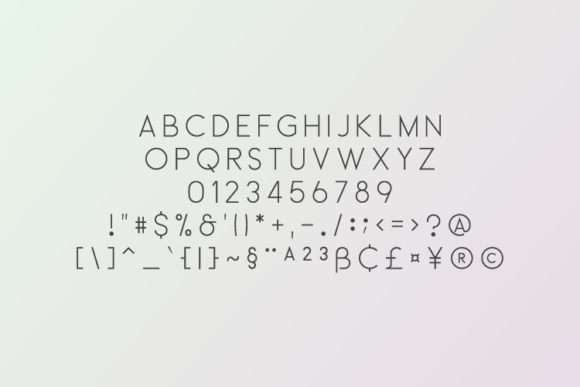
Hatar Font: A Versatile Sans Serif for Every Design Need
In the world of typography, a font can make or break a design. With thousands of options available, finding the perfect one that suits your project’s tone and style can be daunting. However, if you’re looking for a versatile and visually appealing sans serif font, look no further than Hatar. This robust typeface boasts strong capitals and smooth, open lowercase letters, making it an excellent choice for a wide range of applications, from formal to non-formal designs.
The Characteristics of Hatar Font
Hatar’s design is centered around its contrasting yet harmonious uppercase and lowercase letters. The capitals are strong and sturdy, providing a sense of solidity and formality. On the other hand, the lowercase letters are smooth and open, giving off a warm and inviting feel. This contrast makes Hatar incredibly versatile, capable of adapting to various design contexts.
Key Features of Hatar:
- Strong Capitals: The uppercase letters in Hatar are designed with strength and stability in mind. They are perfect for headlines, titles, and any section where you want to draw attention.
- Smooth and Open Lowercase: The lowercase letters are crafted to be highly legible and friendly. They are ideal for body text, articles, and any content where readability is key.
- Versatility: Hatar’s balanced design makes it suitable for both formal and non-formal projects. Whether you’re working on a corporate brand identity or a creative side project, Hatar can adapt to your needs.
Applications of Hatar Font
The versatility of Hatar makes it an excellent choice for a multitude of design projects. Here are some scenarios where Hatar can shine:
1. Branding and Logotypes
For businesses looking to establish a strong and approachable brand identity, Hatar can be a great asset. Its strong capitals can make for compelling logotypes and brand names, while the lowercase letters can be used for taglines or descriptive texts.
2. Digital and Print Media
In digital media, such as websites and mobile apps, Hatar’s clear and readable design ensures a pleasant user experience. For print media, including brochures, posters, and magazines, Hatar’s formal yet warm appearance can elevate the visual appeal of your content.
3. Packaging and Merchandise
When it comes to packaging and merchandise, standing out is crucial. Hatar’s unique blend of robustness and warmth can make your product labels, business cards, or branded merchandise more engaging and memorable.
Why Choose Hatar Font?
With so many fonts available, why should Hatar be your go-to choice? Here are a few compelling reasons:
1. Uniqueness
Hatar offers a fresh take on the traditional sans serif font. Its distinctive character ensures that your designs stand out from the crowd.
2. Readability
Both the uppercase and lowercase letters in Hatar are designed with readability in mind. This makes it an excellent choice for long-form content as well as short headlines.
3. Flexibility
Whether you’re designing for digital platforms or print, Hatar’s versatile design adapts seamlessly across different mediums and sizes.
In conclusion, Hatar font is a powerful tool for designers and crafters looking to elevate their projects. Its unique combination of strong capitals and smooth lowercase letters, along with its versatility and readability, makes it an excellent addition to any design toolkit. Whether you’re working on a formal business project or a more casual creative endeavor, Hatar is sure to meet your typographic needs. So, if you’re on the hunt for a reliable, versatile, and visually appealing sans serif font, give Hatar a try and discover the difference it can make in your designs.